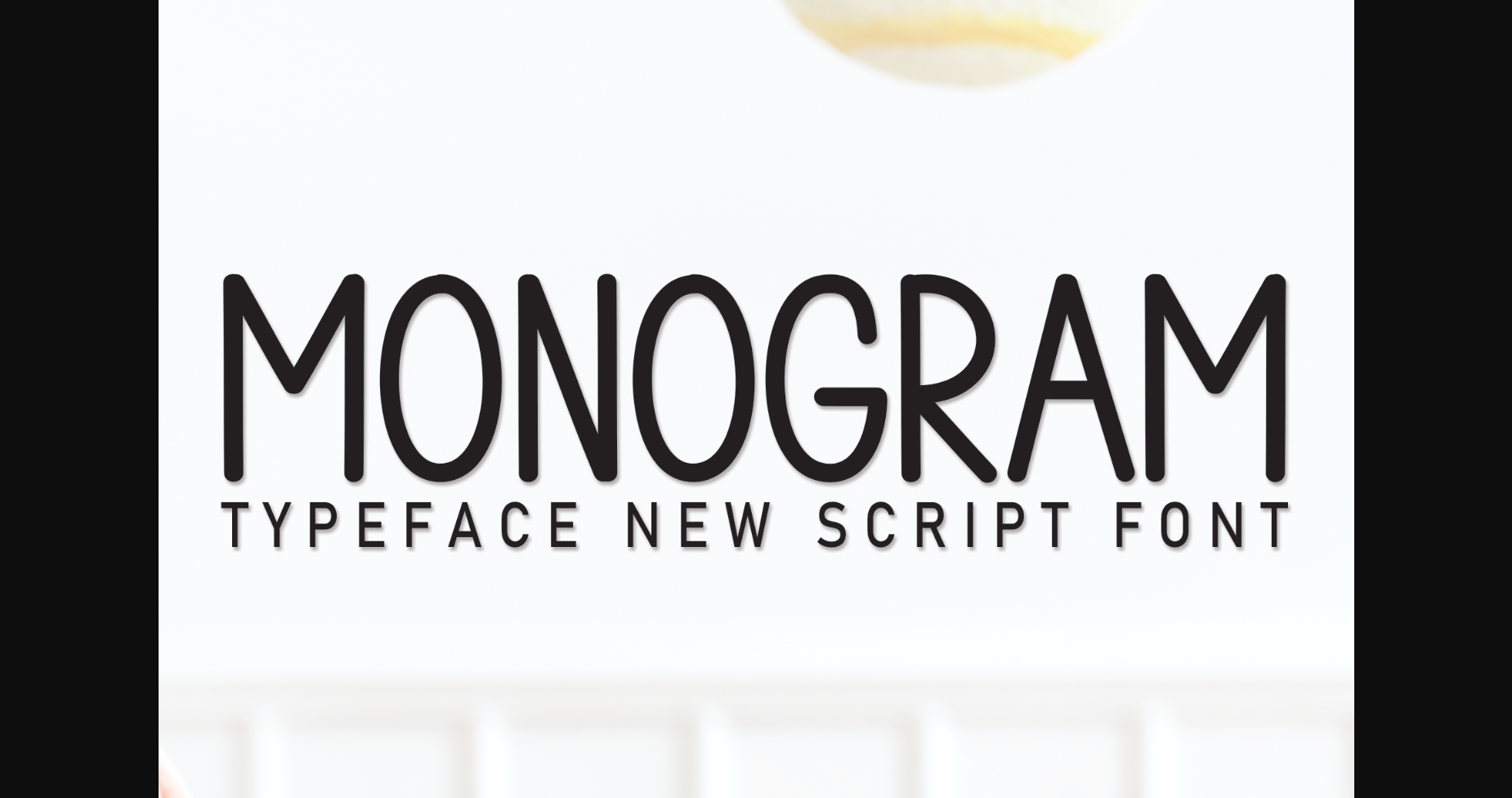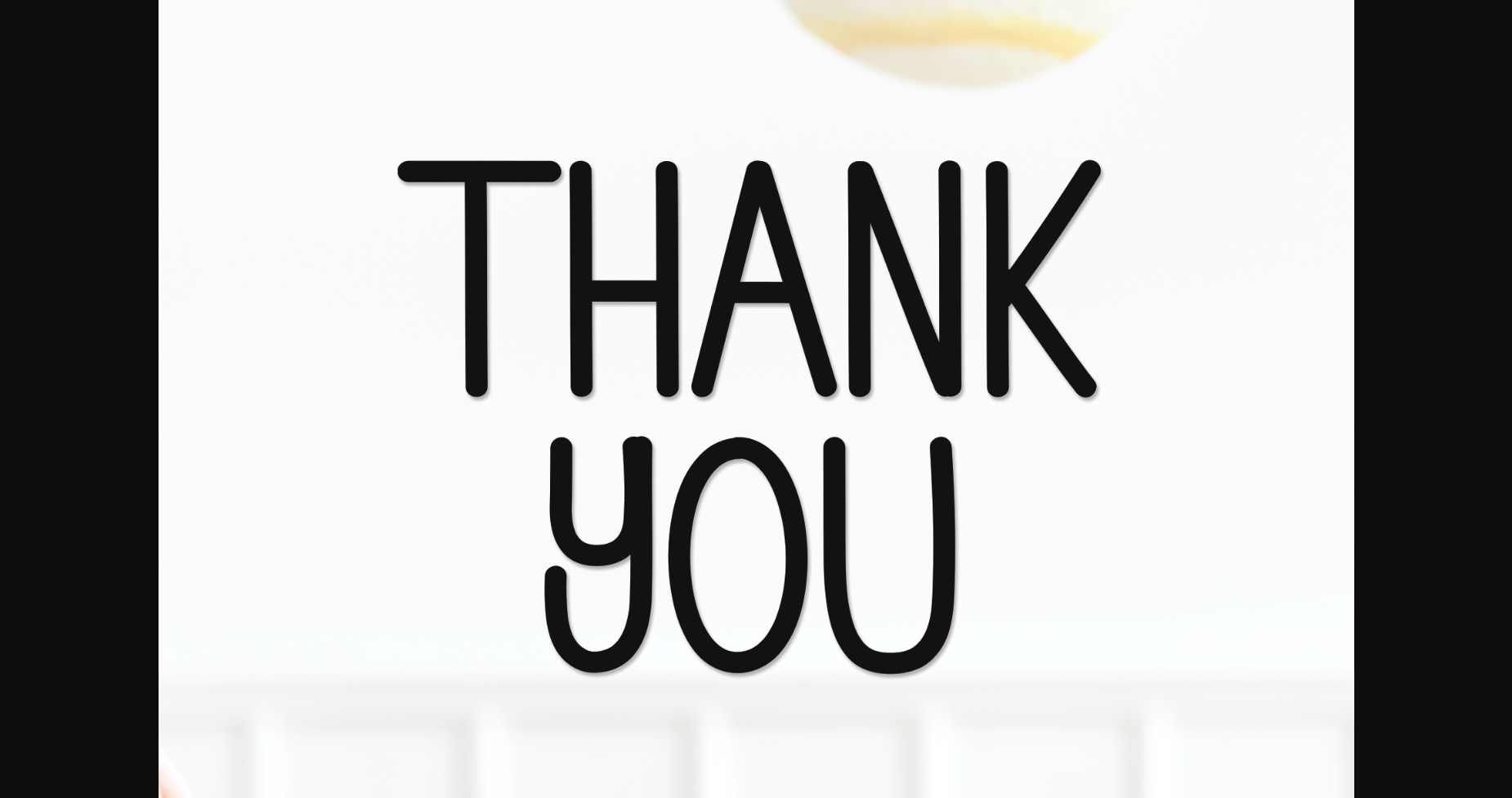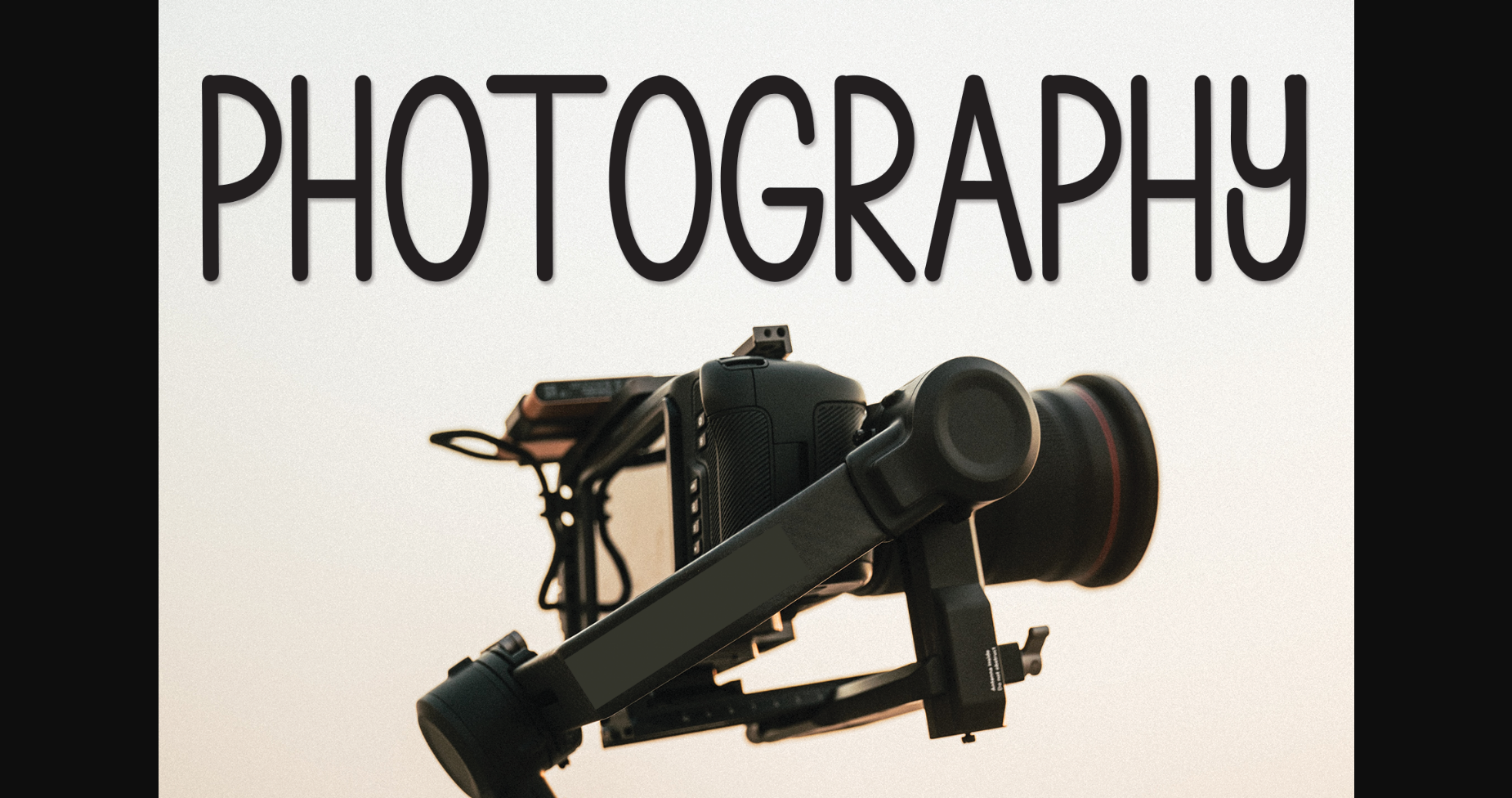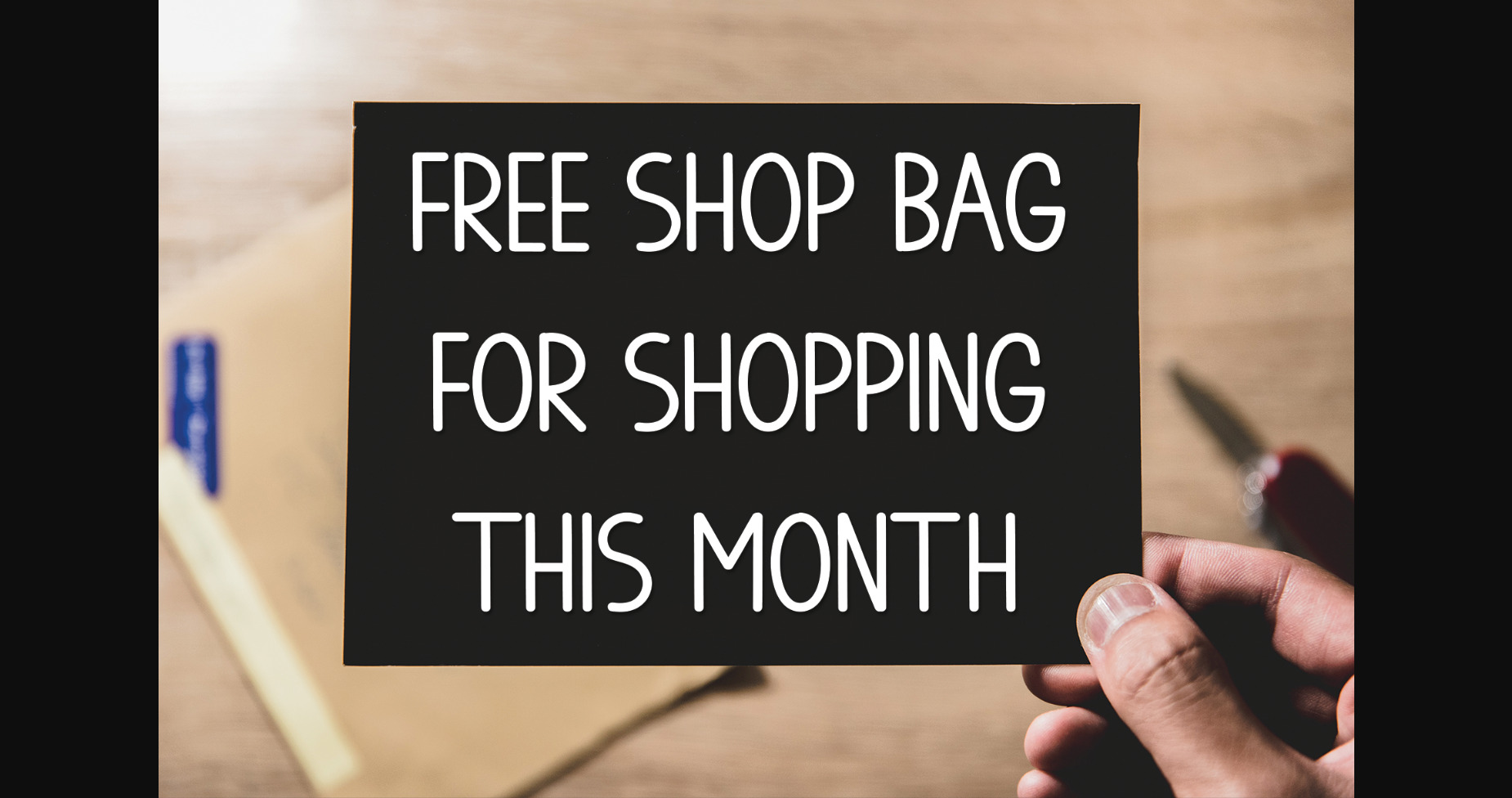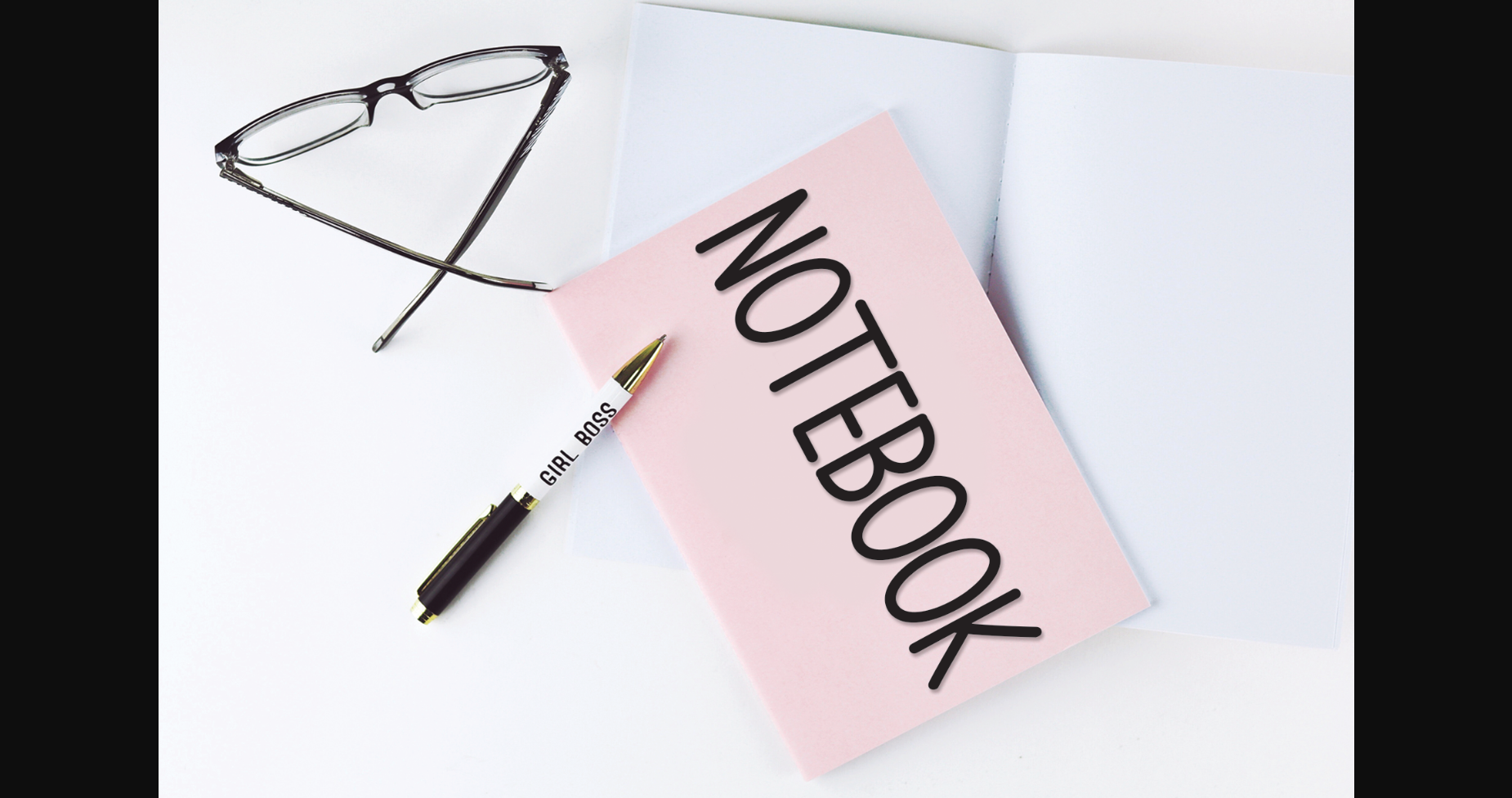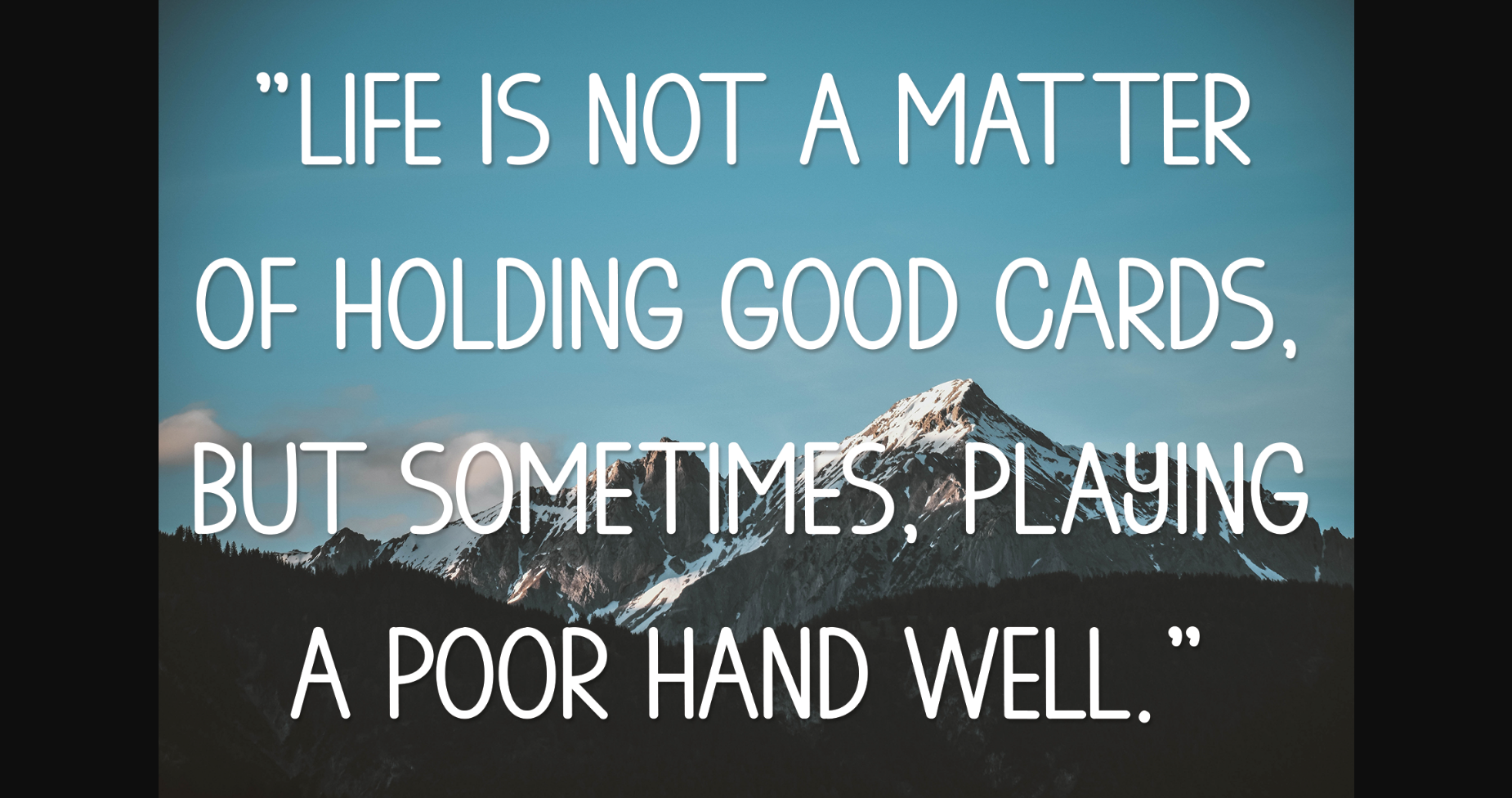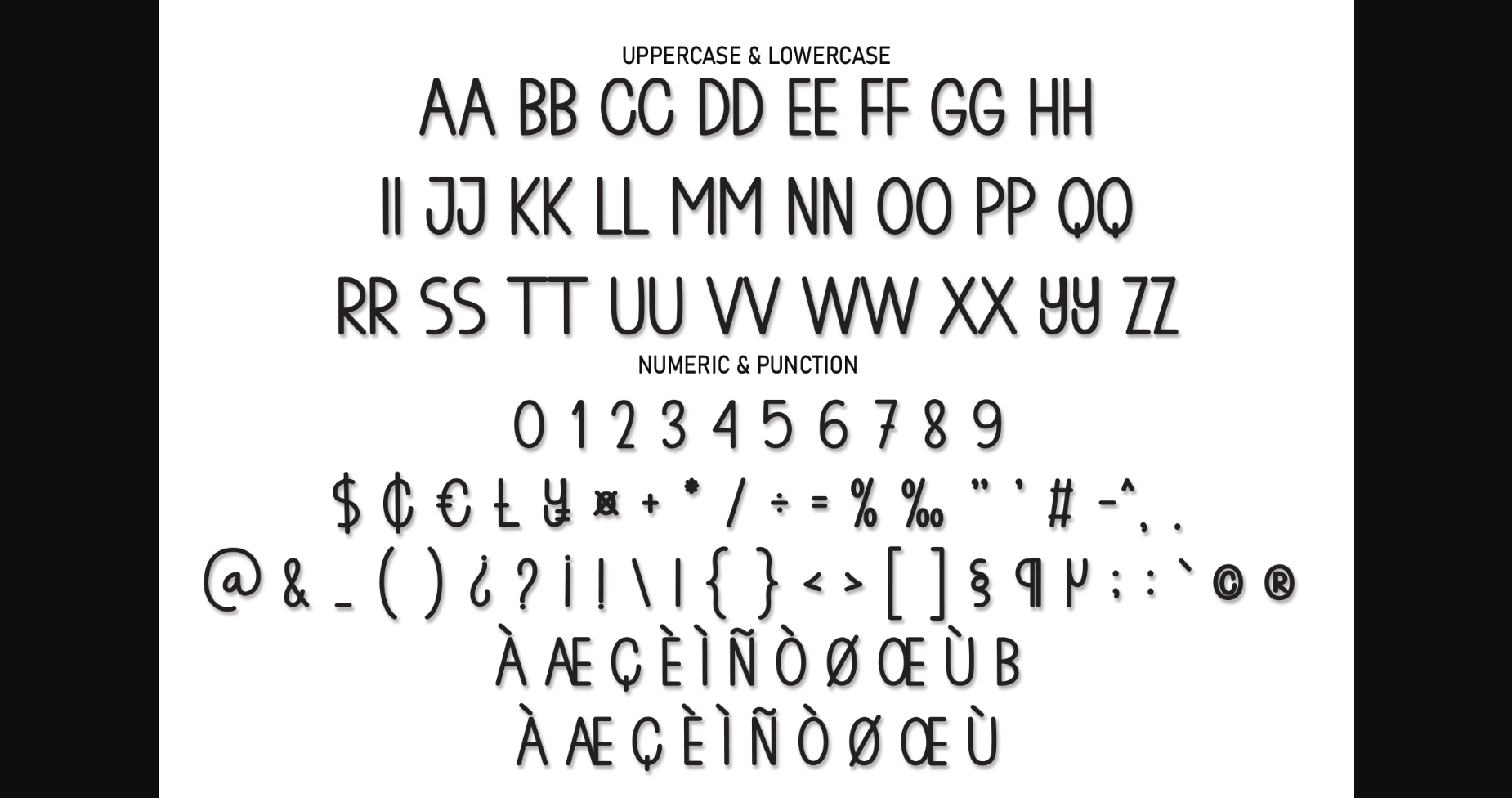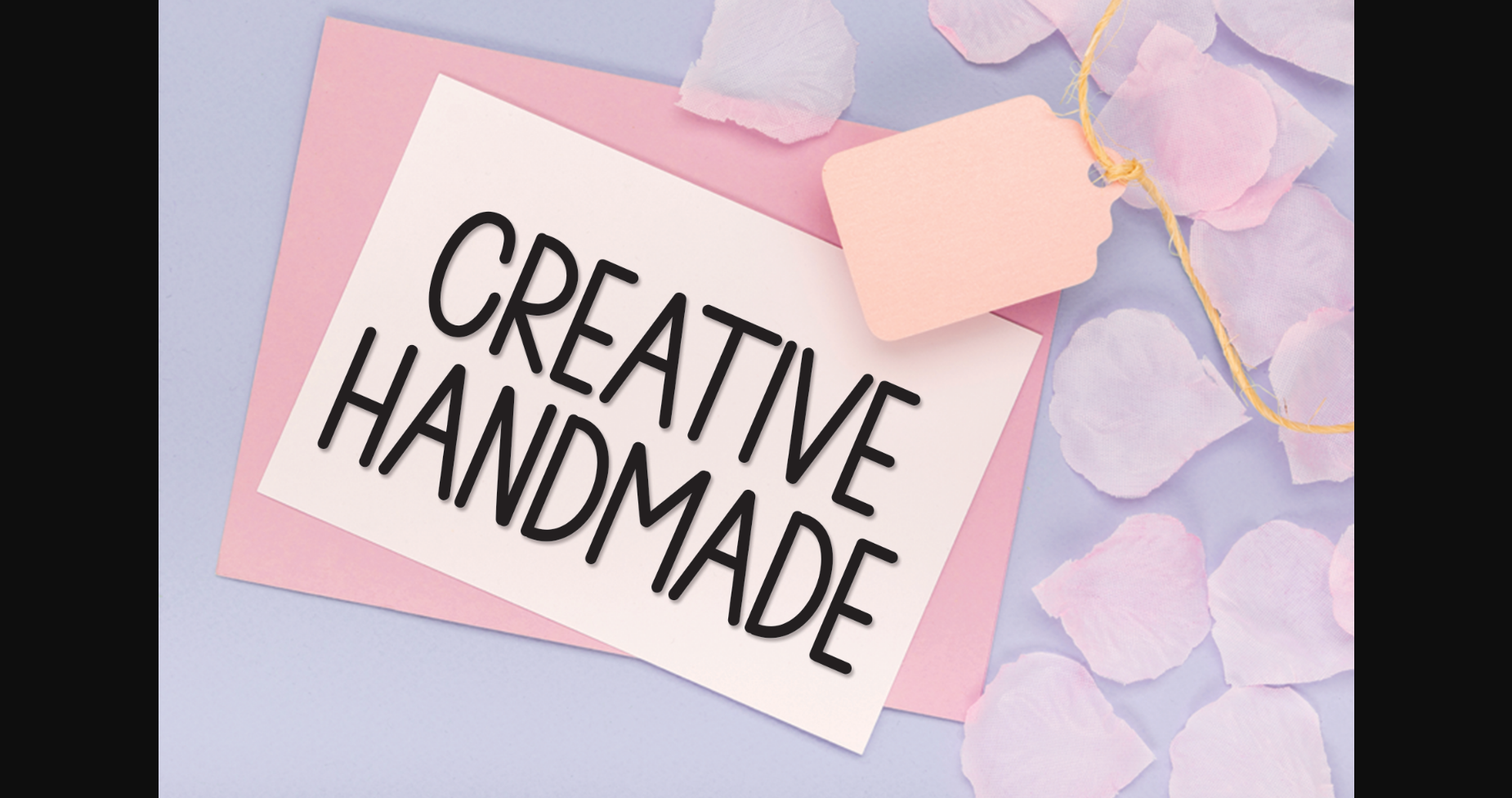
Monogram Font
About Monogram Font
Monogram is a sans serif font, perfect for wall displays, wedding invitations, social media post logos, advertisements, product packaging, product designs, labels, photography, watermarks, invitations, stationery, and any project that requires a classic touch.